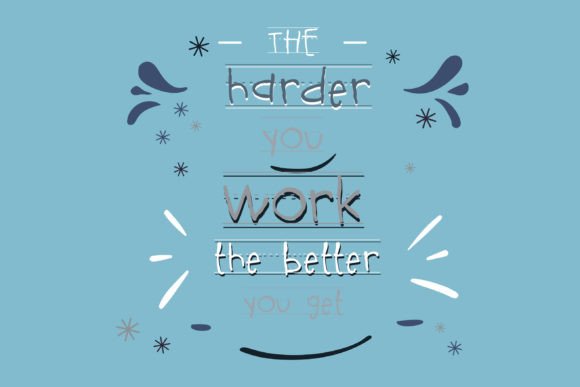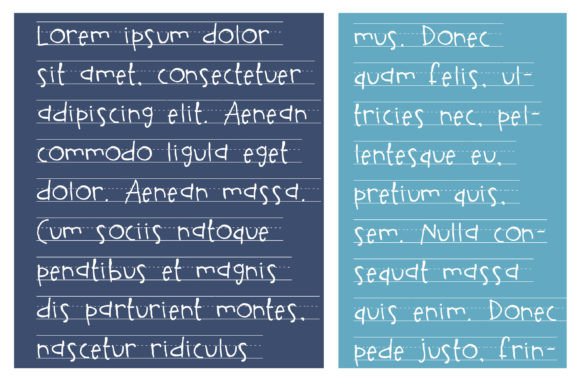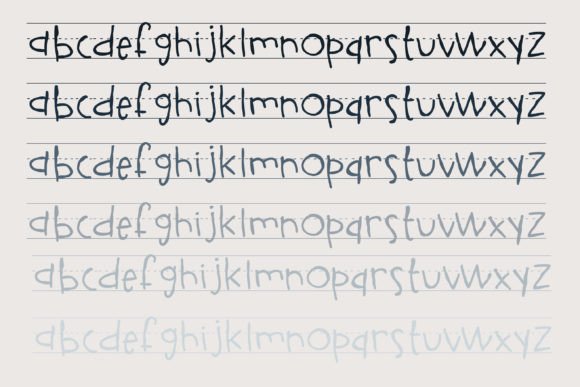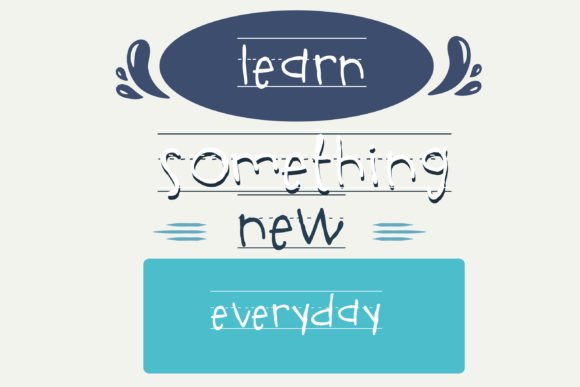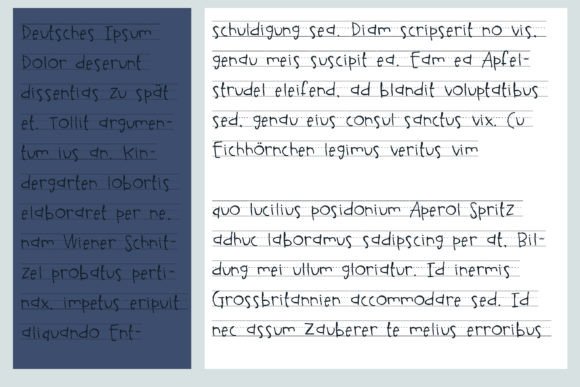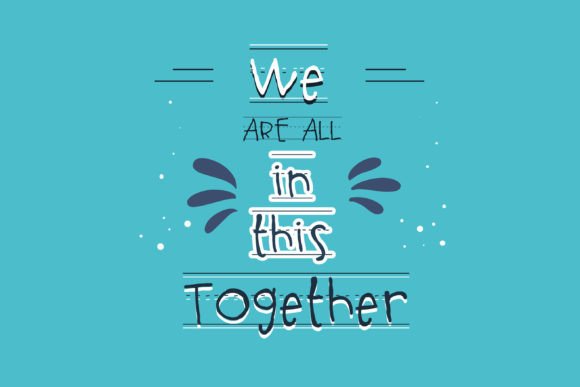
Introduction to Kindergarten Dash Font Font
Fonts play a crucial role in design, and the Kindergarten Dash Font font is a typeface that brings both character and versatility to any project. Whether you’re working on a branding project, a website, or a print design, the Kindergarten Dash Font font offers a unique style that can elevate your work.
This hand-written, very youthful font has built-in grade-school lines and dots.
A hand-crafted font is a font that is designed to look like it was written by hand It is often used for invitations, greeting cards, and other items.
Key Features of Kindergarten Dash Font Font
Why Choose Kindergarten Dash Font Font?
The Kindergarten Dash Font font is more than just a typeface – it’s a design tool that helps you communicate your message with style and clarity. Its unique character set and versatile design make it suitable for a wide range of applications, from elegant invitations to bold headlines.
With its carefully crafted letterforms and balanced proportions, the Kindergarten Dash Font font ensures readability and visual appeal across all mediums.
What makes Kindergarten Dash Font font special?
The Kindergarten Dash Font font stands out with its unique design, exceptional readability, and versatility across various design applications.